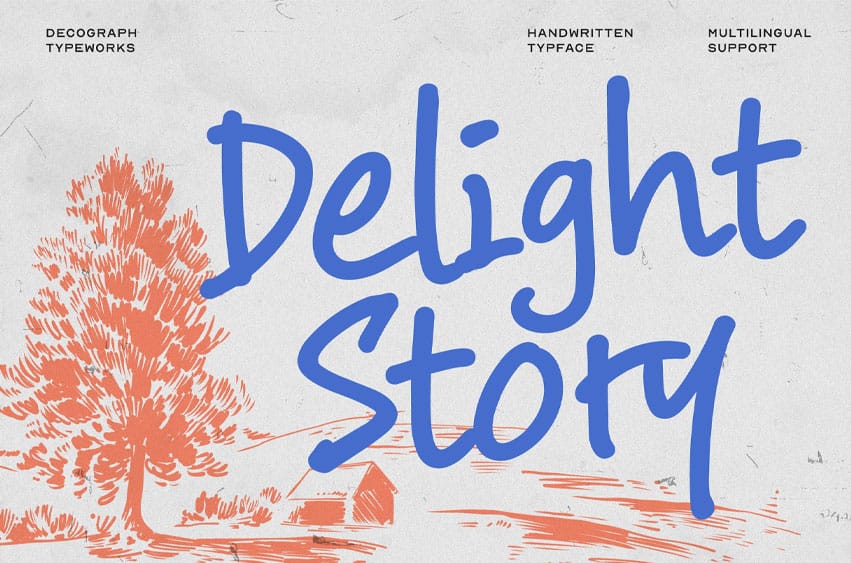
Delight Story Font Casual Handwritten Script Font is a soft and expressive typeface created with natural handwritten flow and relaxed marker-style strokes. Its smooth curves, casual rhythm, and personal character make it feel warm, friendly, and naturally creative.
Best Used For:
- Journal Covers
- Notes Design
- Food branding
- Quote Graphics
- Lifestyle Branding
- Feminine Logos
- Invitation Cards
- Packaging Design
- Social Media Graphics
Font Features:
- Uppercase Letters
- Lowercase Letters
- Numbers And Punctuation
- Smooth Handwritten Flow
- Casual Script Style